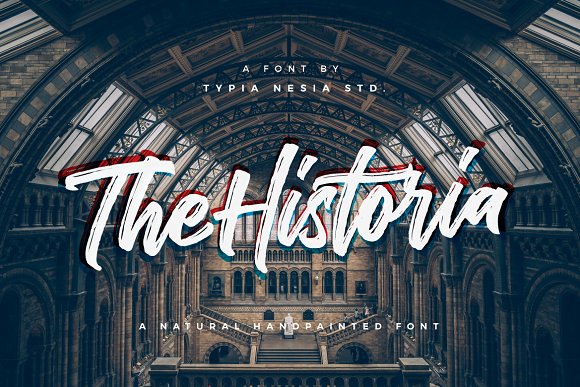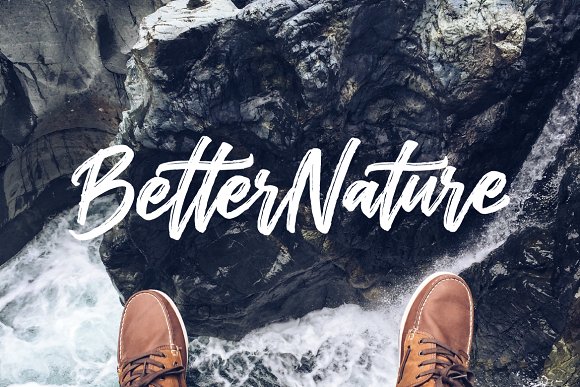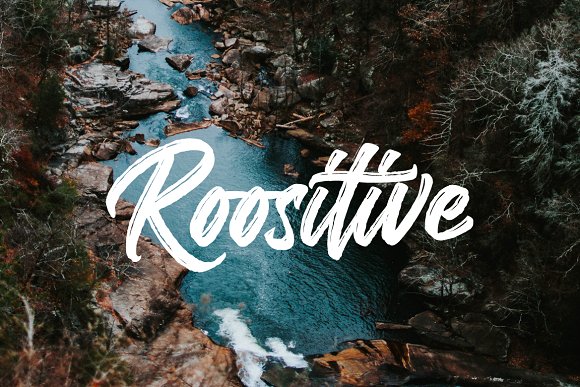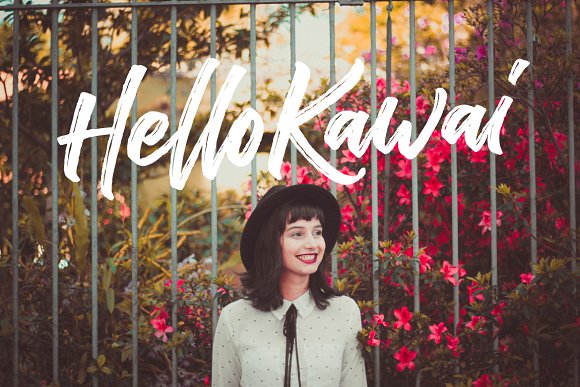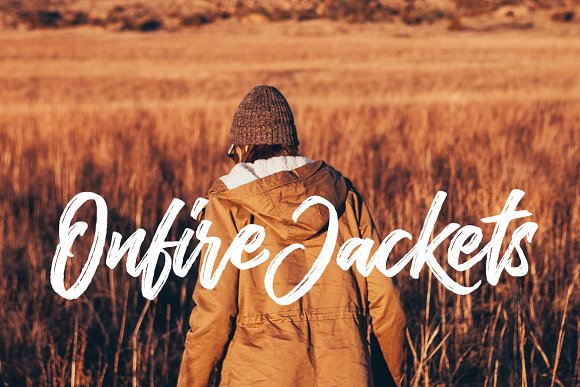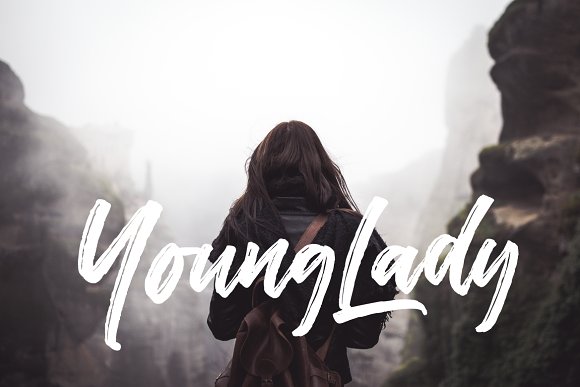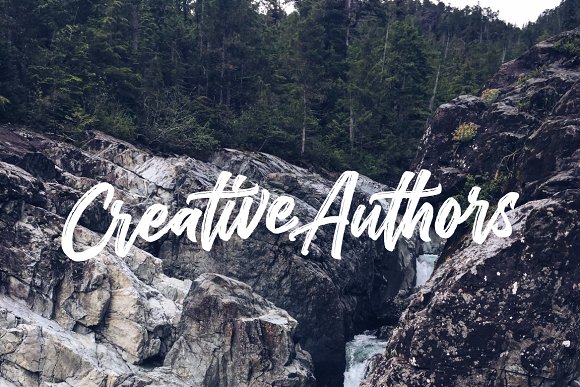
The Historia Display Font
Introducing The Historia! a vintage and natural handpainted font. Suitable for any design needs, branding, modern advertising design, Art Quote, Book/Cover Title, special events, custom mug, pillow, t-shirts, any brush lettering needs and more.